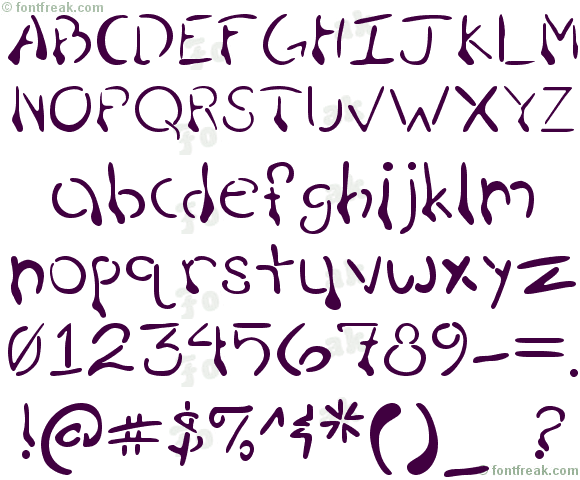
Puddle Oozing
About Puddle
Puddle, designed by Antonio Garcia, is a captivating display font that falls into the decorative category. Its whimsical design features oozing, organic shapes that resemble droplets or puddles, giving it a playful and fluid character. The letterforms exhibit a medium stroke weight with a slight contrast, providing a soft yet definitive appearance. The spacing between characters is generous, allowing the unique curves and details to shine without feeling cramped.
This font is particularly well-suited for creative projects that aim to evoke a sense of fun and lightheartedness. Ideal use cases include wedding invitations where a casual and informal vibe is desired, movie posters that need a unique title treatment, restaurant menus featuring playful themes, children's book covers that require a whimsical touch, and branding for artisanal products looking to convey creativity and approachability. Its versatile nature allows it to fit seamlessly into various design contexts.
The target audience for the Puddle font includes graphic designers who seek to inject personality into their projects, small business owners aiming to create memorable branding, and content creators who want to add a distinctive flair to their visual content. This font can help set a tone that resonates with audiences looking for something refreshing and unique.
What truly sets the Puddle font apart is its ability to blend artistry with functionality. Its distinctive design not only captures attention but also conveys a sense of warmth and creativity that can elevate any project. For those interested in incorporating this playful typeface into their work, a Puddle font free download is readily available, making it an accessible option for enhancing visual communication.